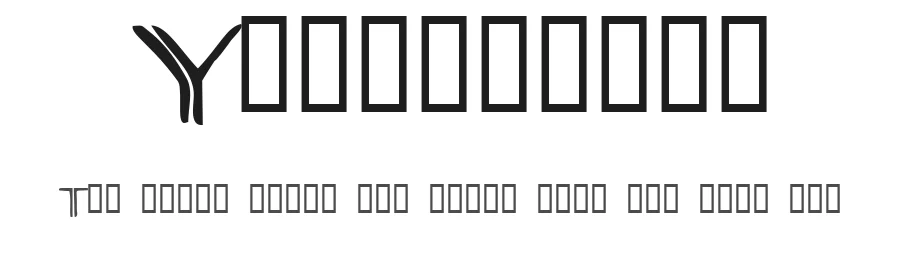
About Extra Fat Font
Extra Fat
Extra Fat Font is a decorative font that shines as a display or heading face. Pair it with a clean sans-serif or serif font for body text β the contrast creates a clear hierarchy while the two styles stay balanced and easy to read.